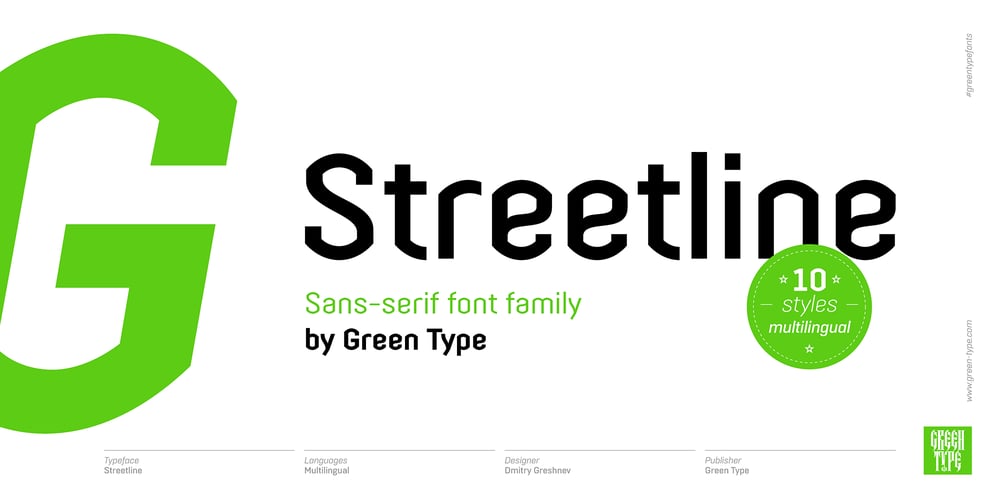
Streetline
Streetline font
Streetline Font Family was designed by Dmitry Greshnev and published by Green Type. Streetline contains 10 styles and family package options. The Streetline font family was designed by Dmitry Greshnev and published by Green Type.It is a geometric sans-serif font with distinctive sans serif shapes. Streetline contains 10 styles.